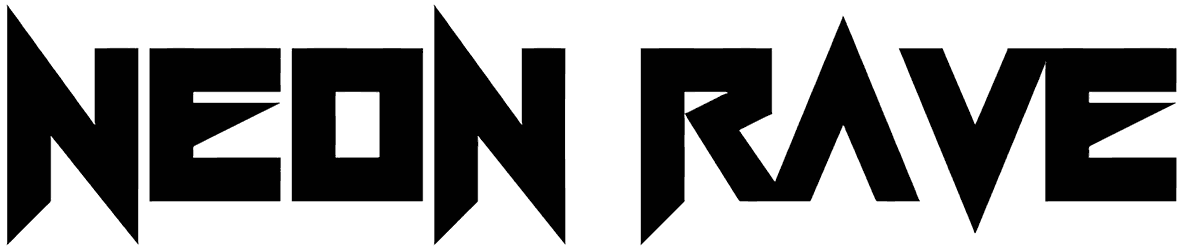
Neon Rave Font
You can show off your design with a keen and strong vibe and make it cool. As a techno font, Neon Rave has a bold and hand-drawn form that can be an interesting illustration for many modern themes.
This sharp font has no lowercase, but possessing two styles would cover this lack. Set this item on your creative designs, namely posters, match invitations, game graphics, or the like, and create an ultramodern mood.